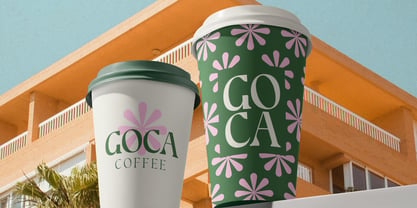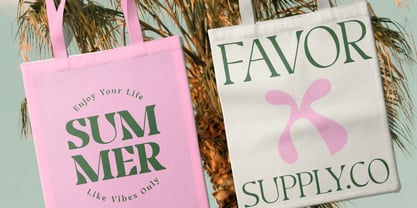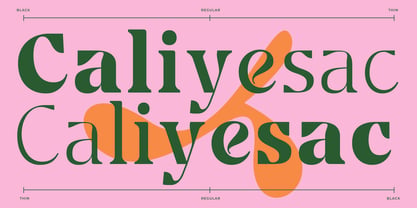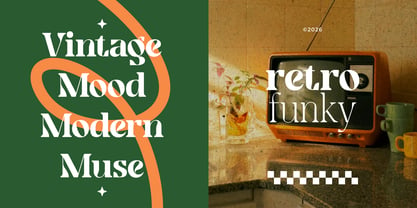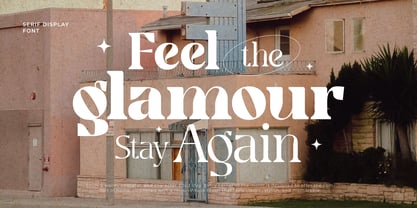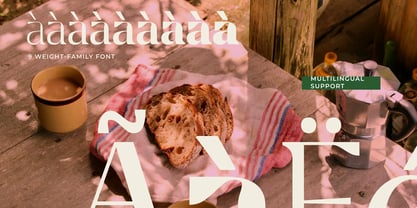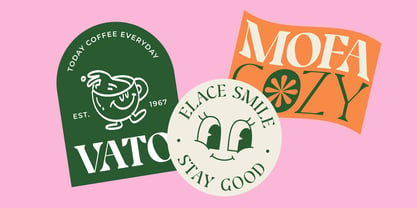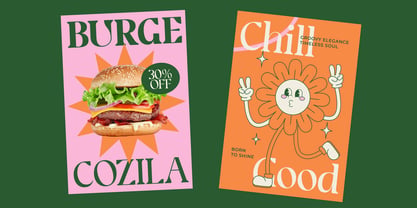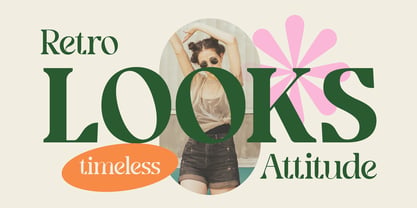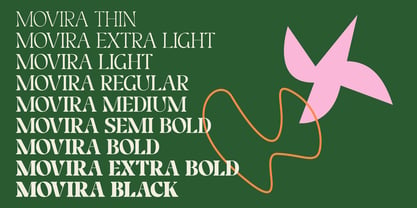
Movira
by Steptype
The Movira Font Family was designed by Mhd Husaini and published by Steptype. Movira contains 9 styles and family package options. More about this family
Movira is an elegant modern serif font that blends timeless sophistication with a touch of retro charm. Inspired by classic editorial typography and vintage fashion aesthetics, Movira features graceful high-contrast strokes, refined curves, and beautifully crafted ligatures that create a luxurious reading experience.
Designed as a complete family with 9 weights, Movira offers exceptional flexibility—from delicate body text to bold editorial headlines. Whether you're designing premium branding, fashion campaigns, luxury packaging, wedding stationery, magazines, cosmetics, or lifestyle content, Movira delivers a distinctive voice that feels both classic and contemporary.
Its balanced proportions and multilingual support make it an excellent choice for designers seeking a versatile serif family with premium quality and lasting elegance.